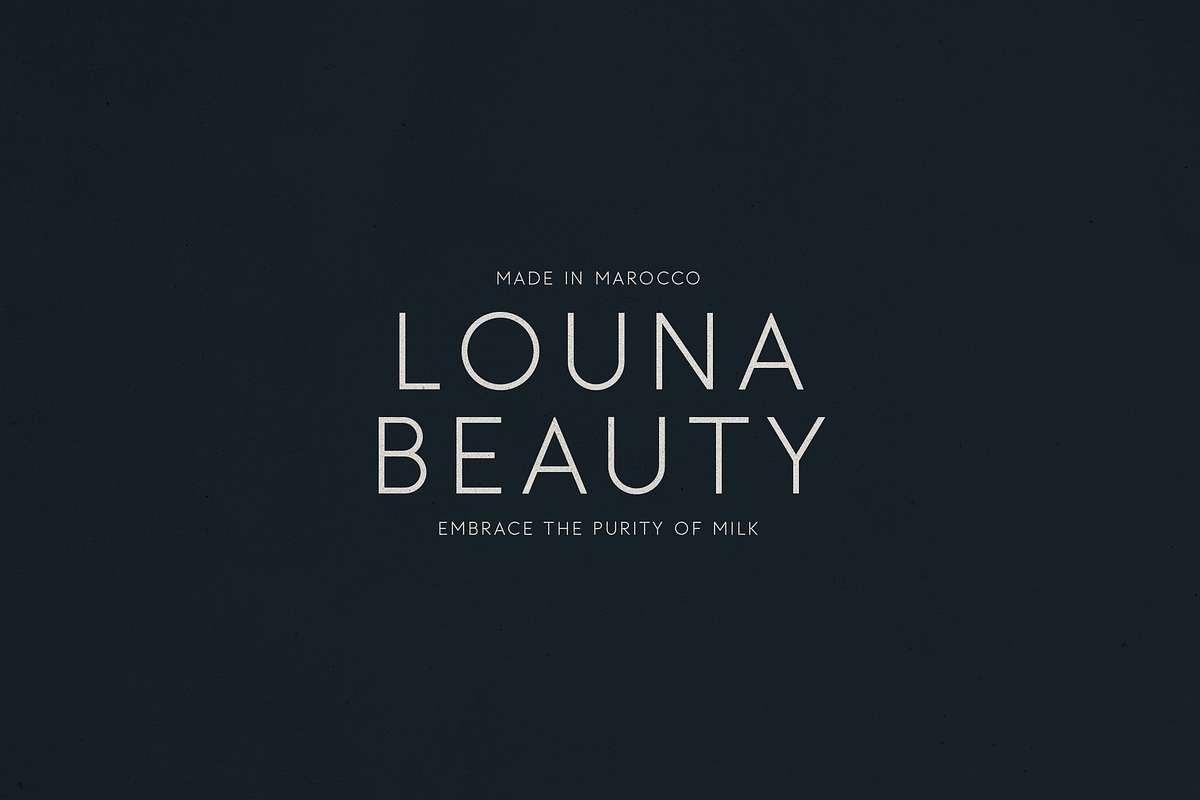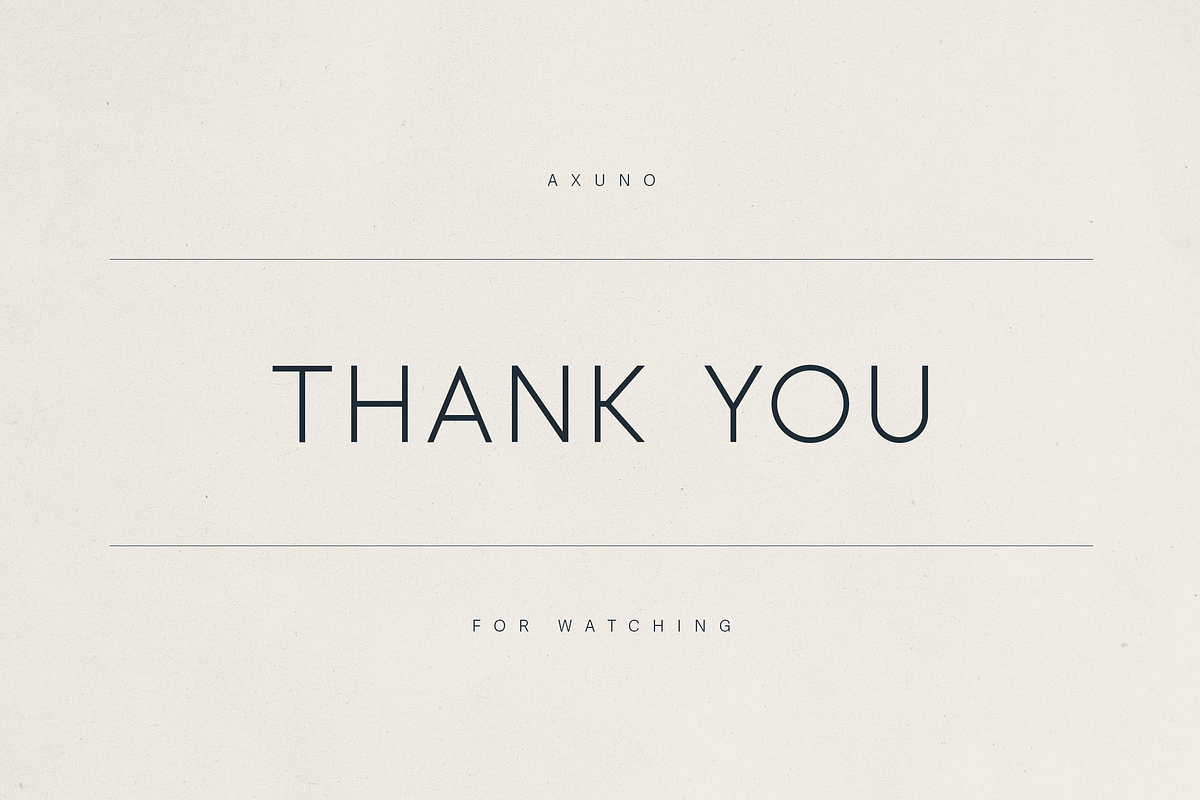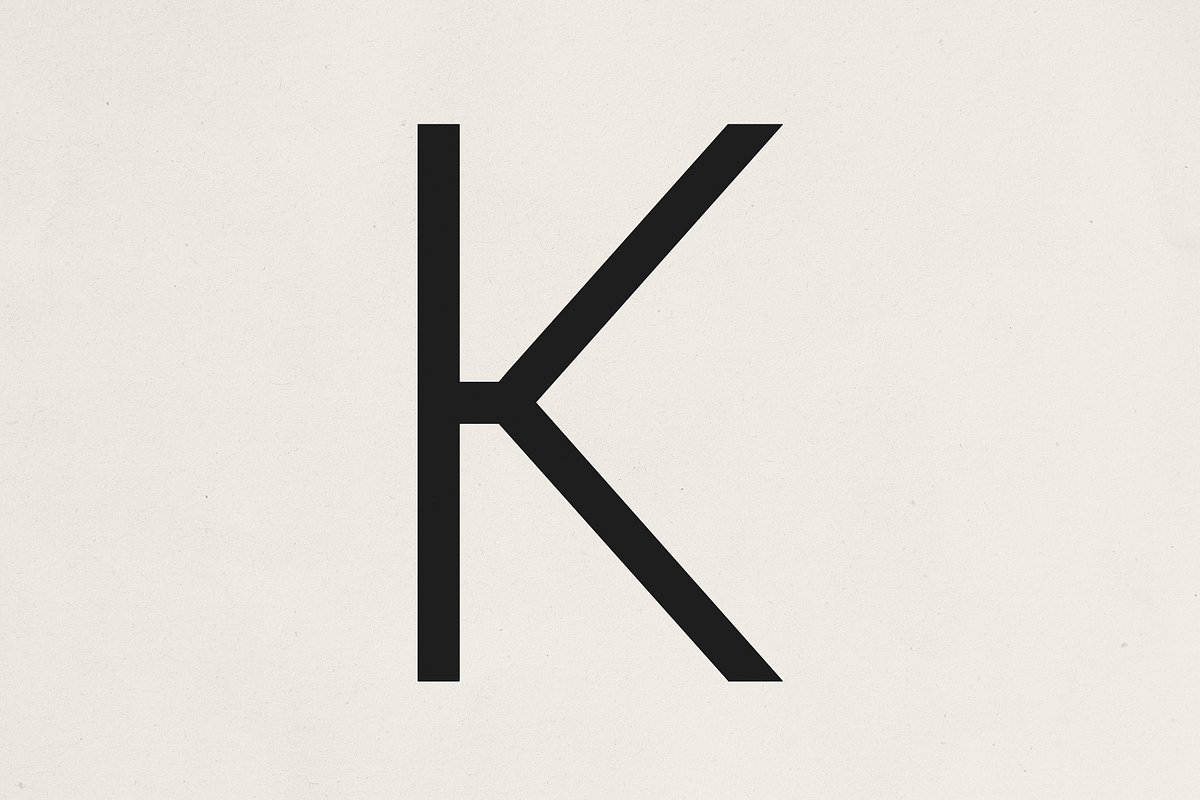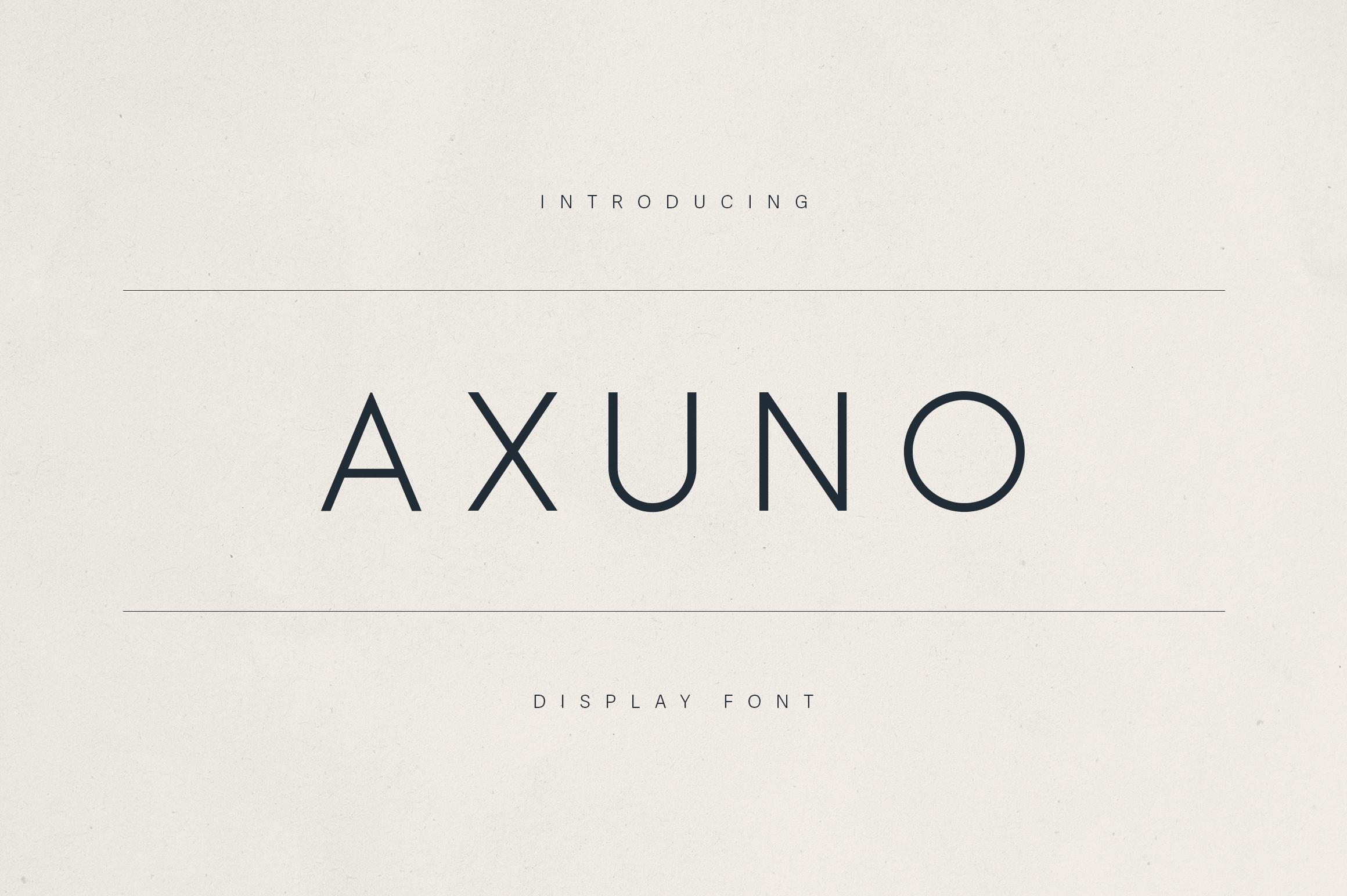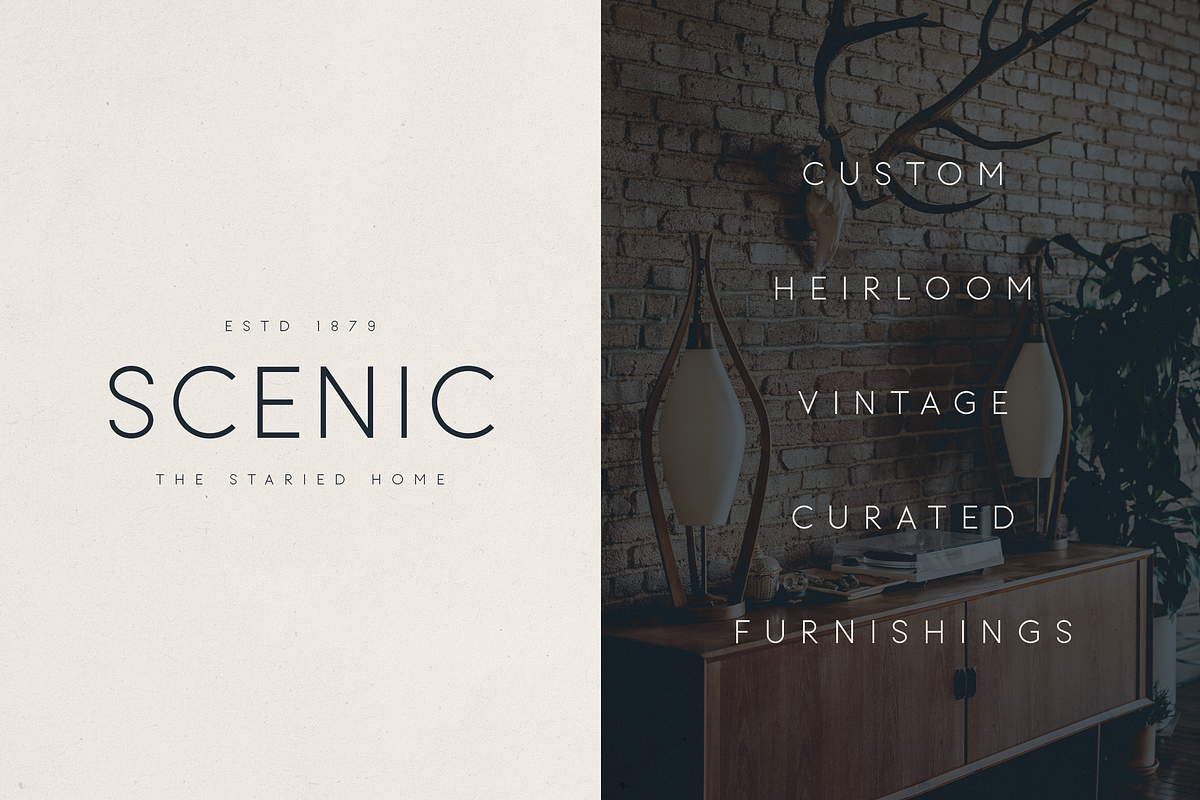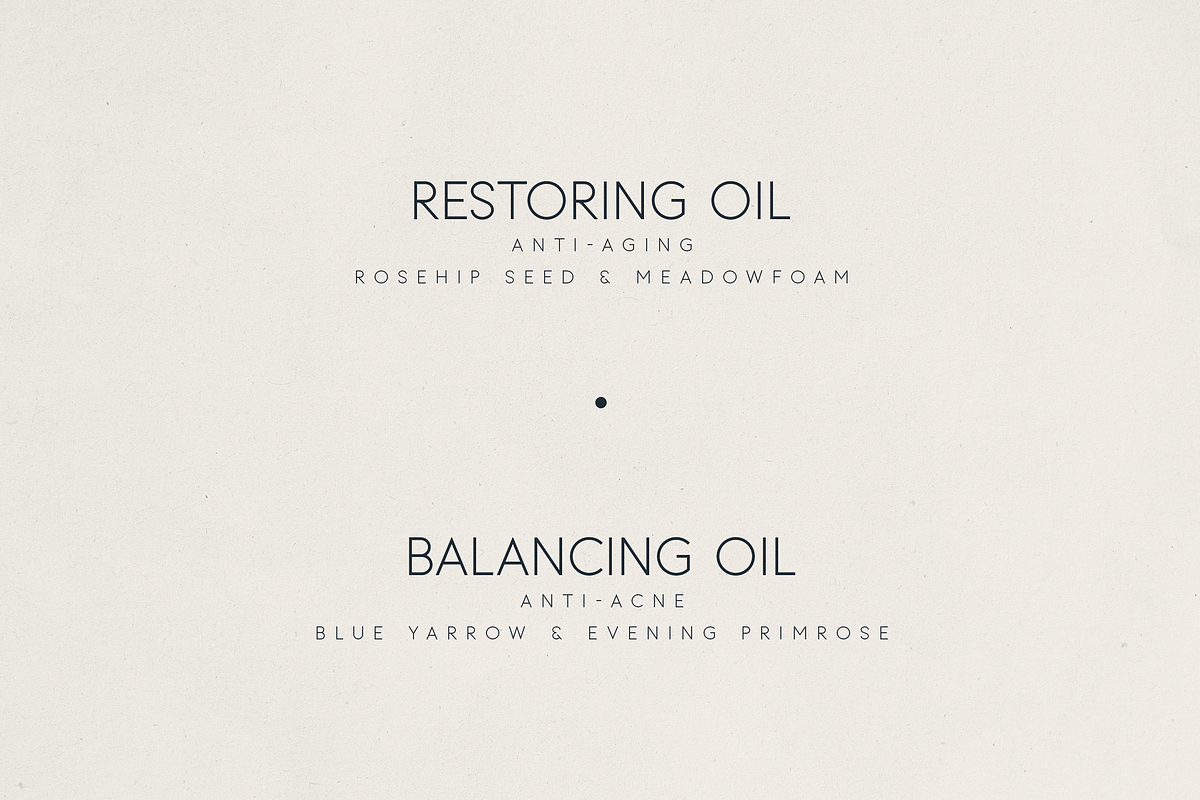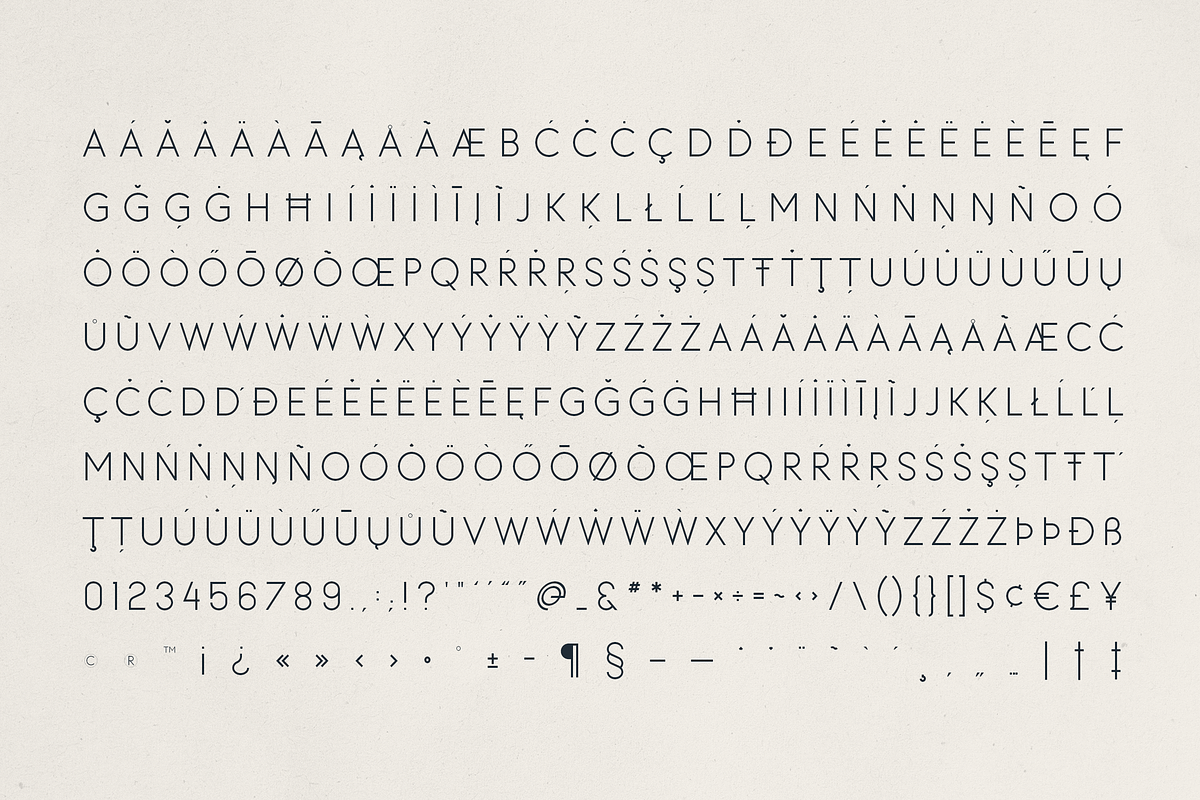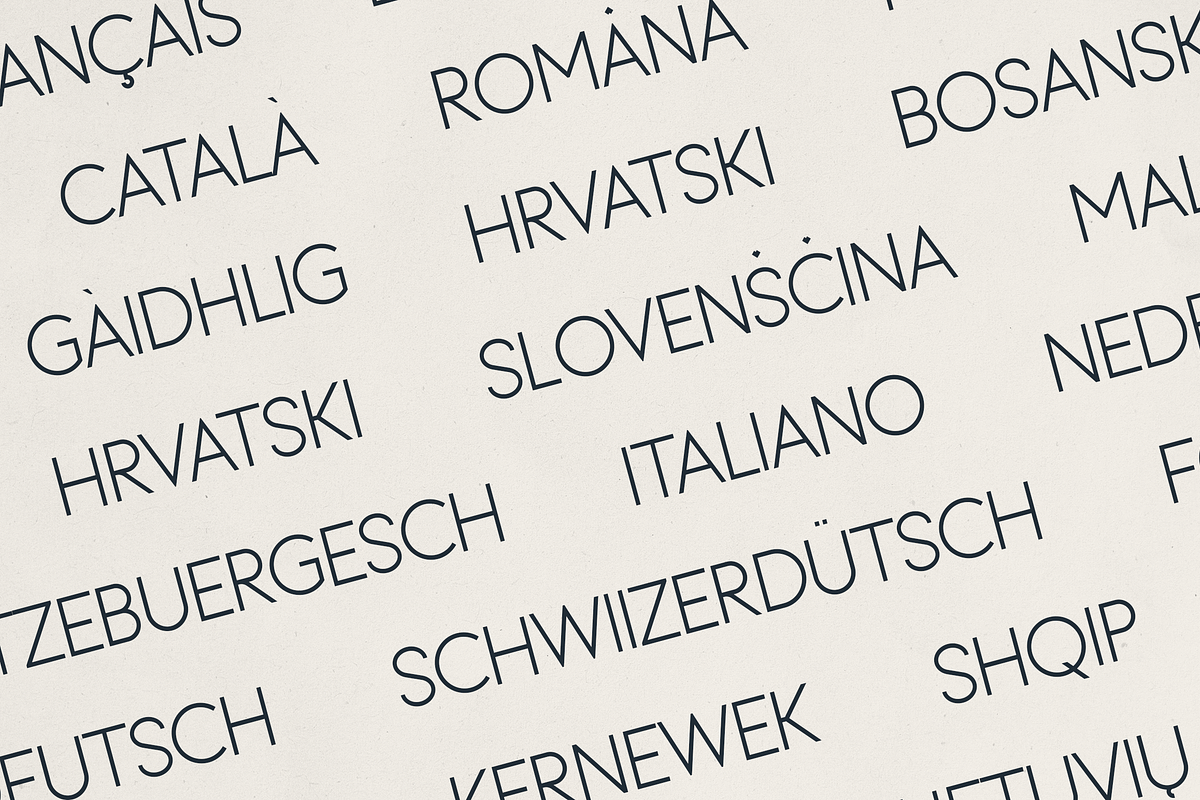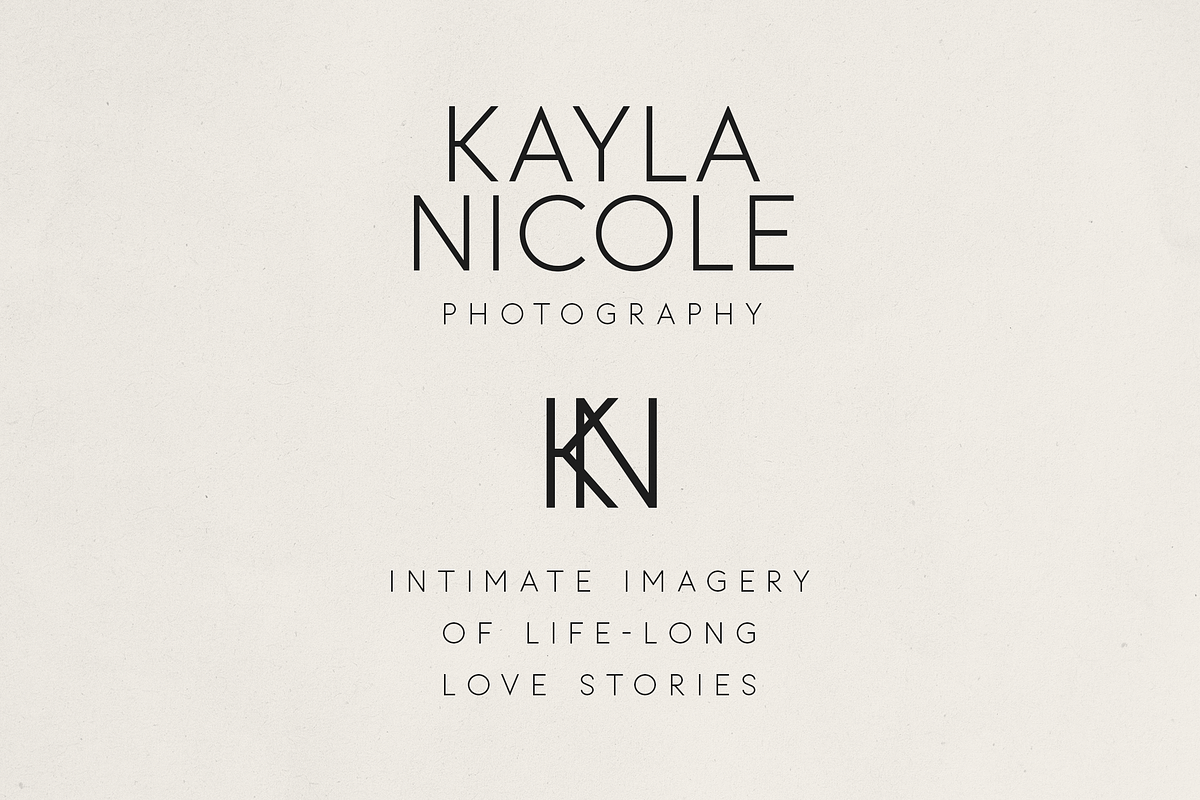
Axuno – Minimal & Elegant Font
Axuno – Minimal & Elegant Display Sans Serif Font
Introducing Axuno, a modern sans serif display typeface crafted with precision and grace. Perfectly balancing minimalism with character, Axuno brings a timeless sophistication to branding, editorial design, product packaging, and digital media. With its clean geometry, open letterforms, and refined proportions, Axuno is designed to evoke elegance and clarity across both print and screen.
Ideal for luxury branding, high-end cosmetics, interior design studios, fashion editorials, and lifestyle publications, Axuno adapts effortlessly to various tones – from vintage-modern to contemporary chic.
Whether you're designing a refined logo, crafting a compelling magazine layout, or creating clean product labels, Axuno adds a sophisticated edge to your typography.
- Elegant sans serif with high readability
- All-caps character set
- Supports over 85 languages
- Includes numerals, punctuatio
- Ideal for branding, packaging, editorial, and web design
- Works beautifully in minimalist, vintage, and luxury themes
- Lifestyle & fashion branding
- Skincare & beauty packaging
- Photography logos & portfolios
- Interior & furniture brand identities
- Editorial spreads & magazines
- Premium product labels